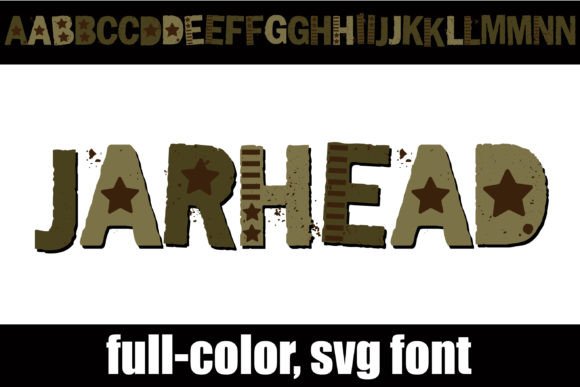
Welcome to the world of visual storytelling, where words dance in harmony with colors, creating a symphony of artistic expression. Introducing Jarhead Font, a striking full-color masterpiece that will transform your digital creations into vibrant works of art.
Ignite your Instagram presence with Jarhead Font, the ultimate tool for capturing attention and leaving a lasting impression. Let your words paint a picture of creativity, inviting your audience to immerse themselves in the bold and captivating designs you create.
With its grungy, sans serif lettering and distinct military color palette, Jarhead Font exudes a sense of raw power and edgy individuality. Unleash your inner rebel and let your words roar with strength and determination.
But that's not all. Jarhead Font offers an additional layer of versatility with its alt version of each letter in a different color. Simply access your system character map and unlock a world of creative possibilities. Mix and match colors, create captivating gradients, and let your words burst with vibrancy and personality.
With Jarhead Font, you'll create designs that speak volumes, leaving an unforgettable impact on your audience. From simple text logos to complex illustrations, let your imagination run wild and create masterpieces that captivate and inspire.